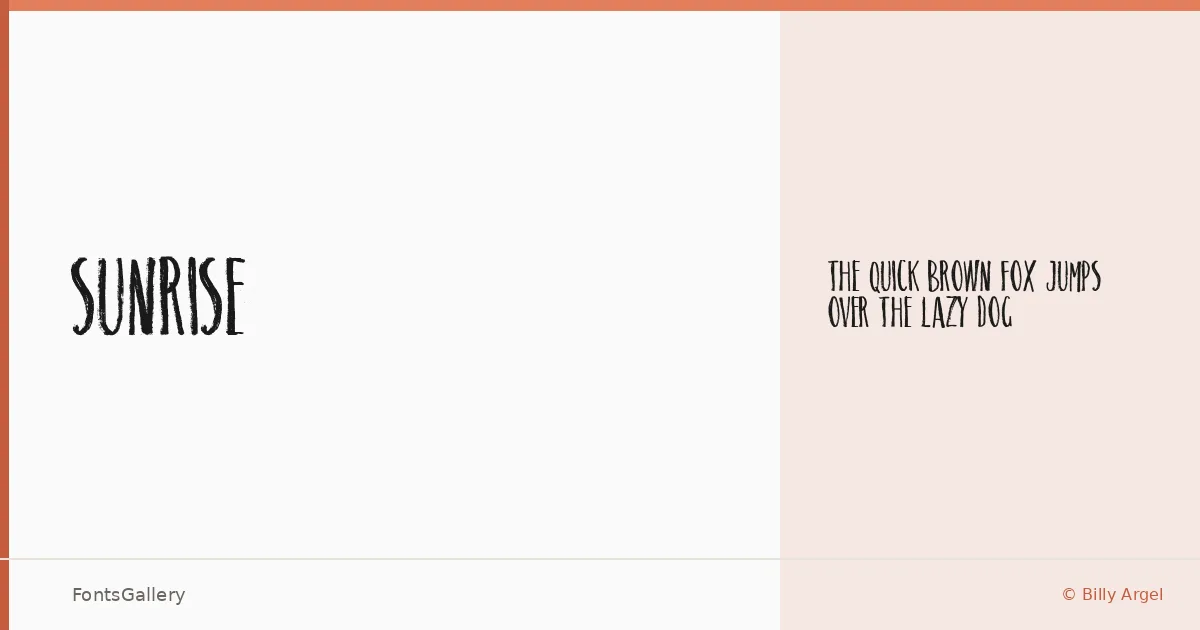
About SUNRISE Font
There's a raw, weathered energy to these letterforms — the kind of deliberate imperfection that takes real craft to pull off. Created by Billy Argel, this display face sits somewhere between roadhouse signage and screen-printed apparel, with a grunge texture baked into every stroke that reads as authentically worn rather than artificially distressed.
The family ships as a single Regular cut in TTF format, which means the work is all in the design itself rather than a range of weights. The mood is bold and rustic, carrying that vintage quality you'd associate with hand-lettered posters and heritage branding — confident without being mechanical. Latin script coverage keeps it focused, and the forms hold up at display sizes where that gritty character can breathe properly.
This is a face for logos, posters, T-shirt graphics, and social media visuals where rough-edged personality is the whole point — not an afterthought. The listed pairing families — Helvetica, Aileron, Abrade, Canela, and Anglecia Pro — all offer clean or refined counterpoints that let the textured display lettering lead without the composition feeling chaotic.